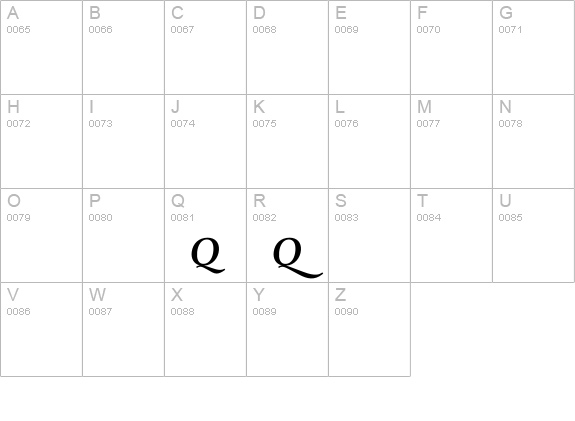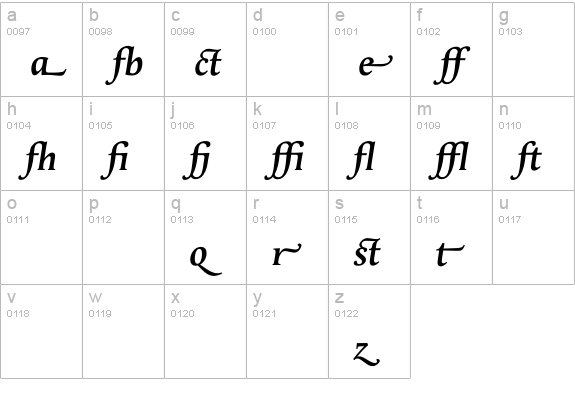
ApollineAlternate-SemiBoldItalic Font Details
ApollineAlternate-SemiBoldItalic font is a striking and elegant typeface that exudes modernity and sophistication. With its bold yet graceful curves and distinct italic styling, this font is perfect for adding a touch of sophistication to any project. Whether you're designing a logo, creating a poster, or crafting a stylish website, ApollineAlternate-SemiBoldItalic font is sure to make a statement. What sets this font apart is not only its aesthetic appeal but also its versatility. It can be used for a wide range of design projects, from branding to editorial design to packaging. Its bold and italicized features add a dynamic and eye-catching element to any text. And the best part? ApollineAlternate-SemiBoldItalic font is available for free download at FontsMarket.com. This means you can easily access this beautiful typeface and use it in your projects without any cost. So why wait? Elevate your designs with the timeless elegance of ApollineAlternate-SemiBoldItalic font today!